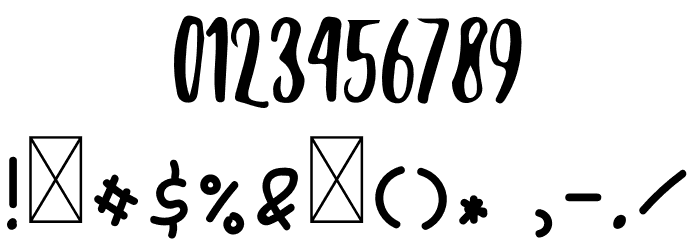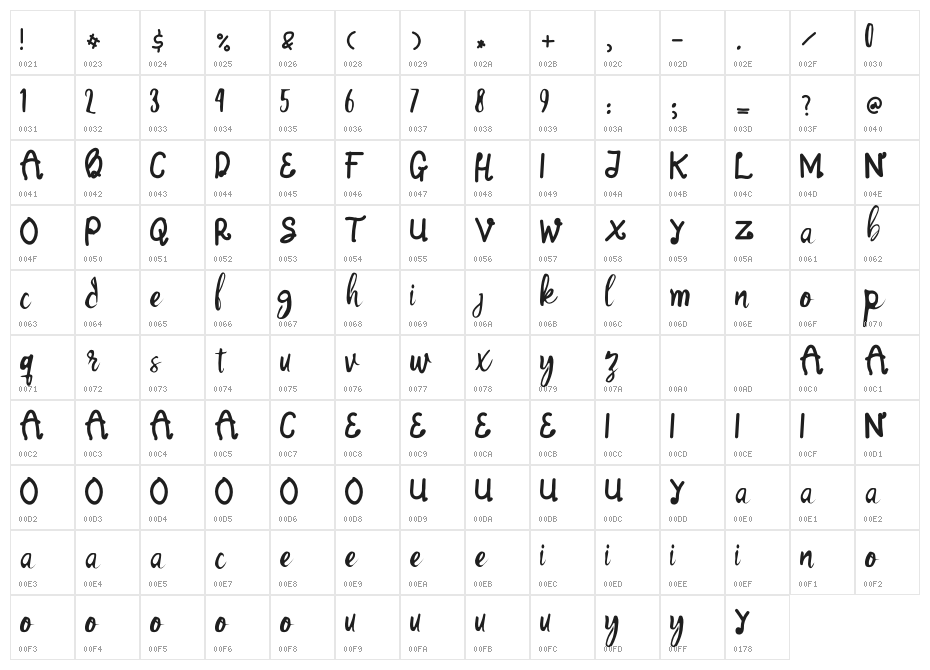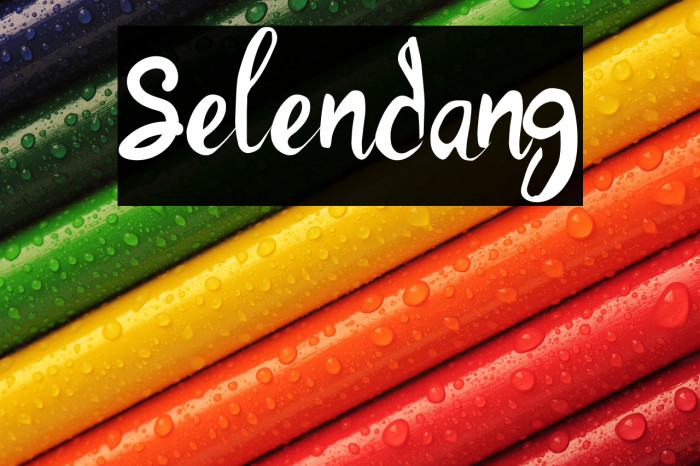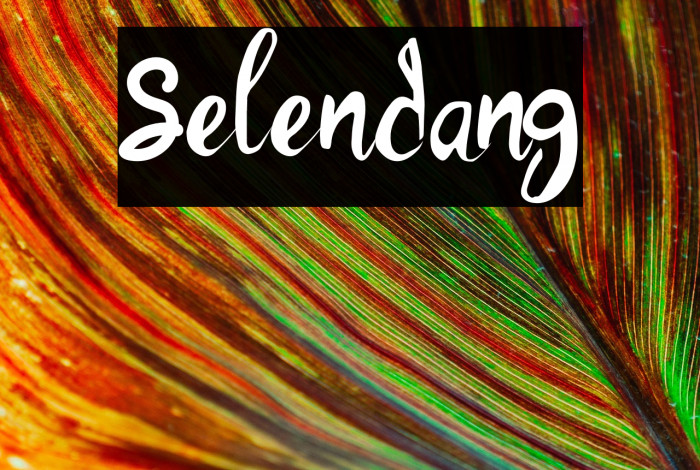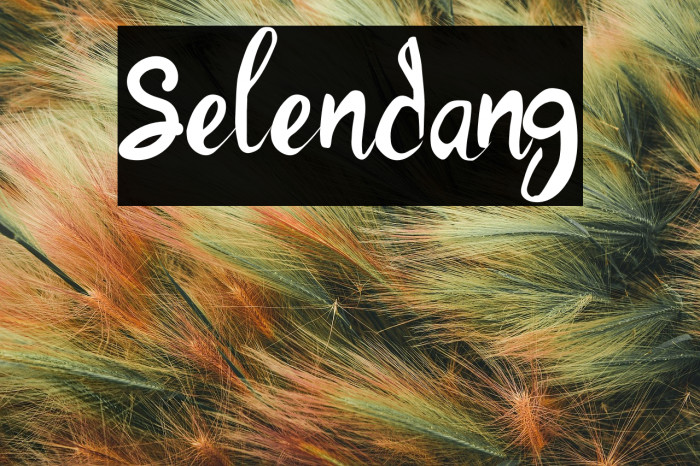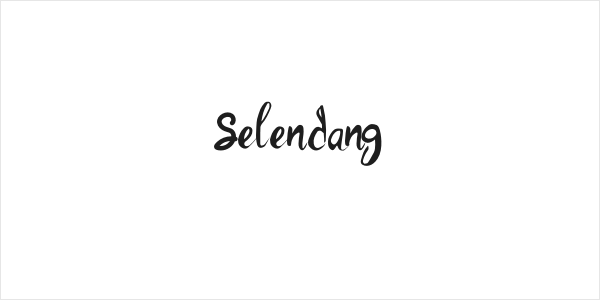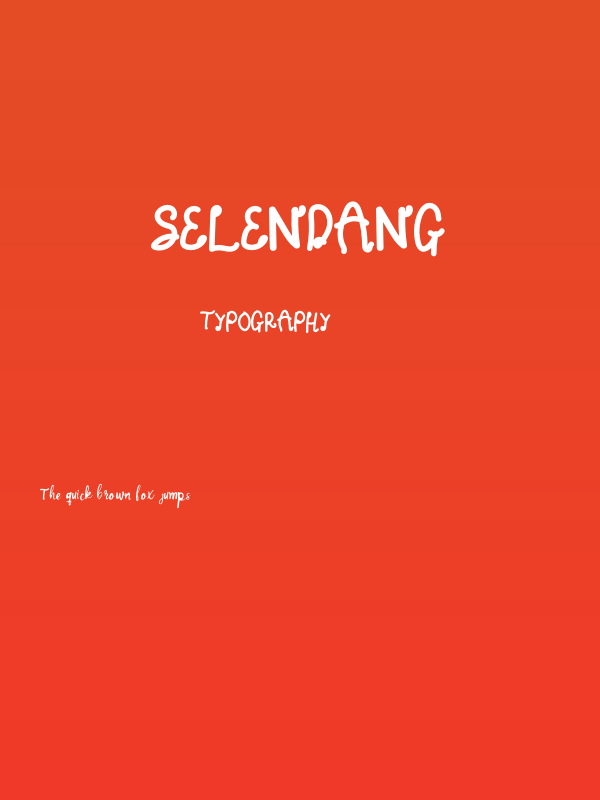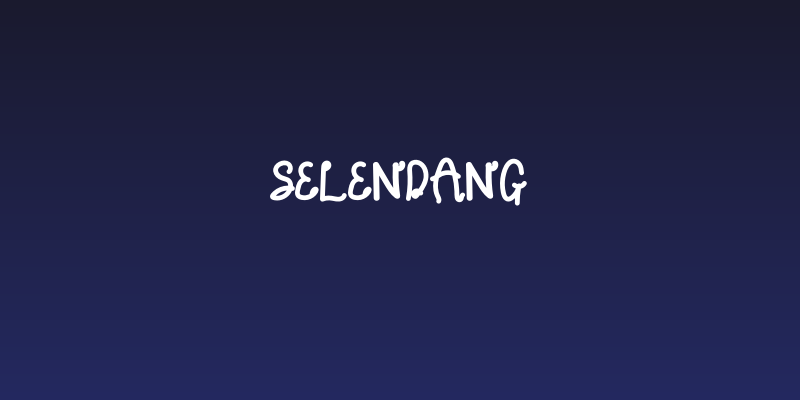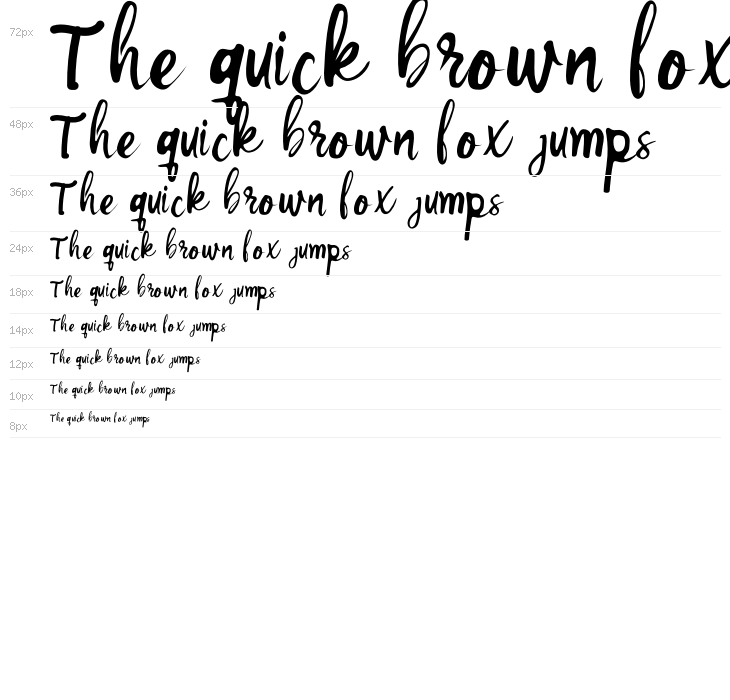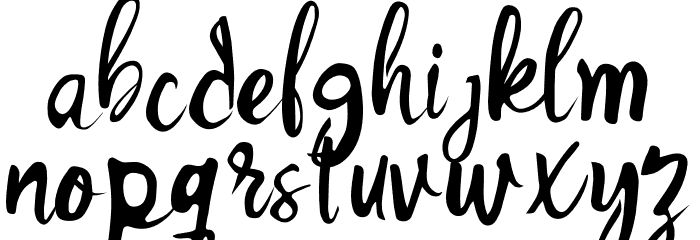
Selendang Font
Selendang Description
This font features a playful and dynamic script style with a handwritten appearance. The letters are bold and have a slightly irregular baseline, giving them a lively and informal feel. The uppercase and lowercase letters are well-balanced, with a consistent stroke width that adds to the font's readability. The numbers and special characters maintain the same energetic style, making them suitable for various creative applications. The font's overall design is both expressive and approachable, making it ideal for projects that require a personal touch.